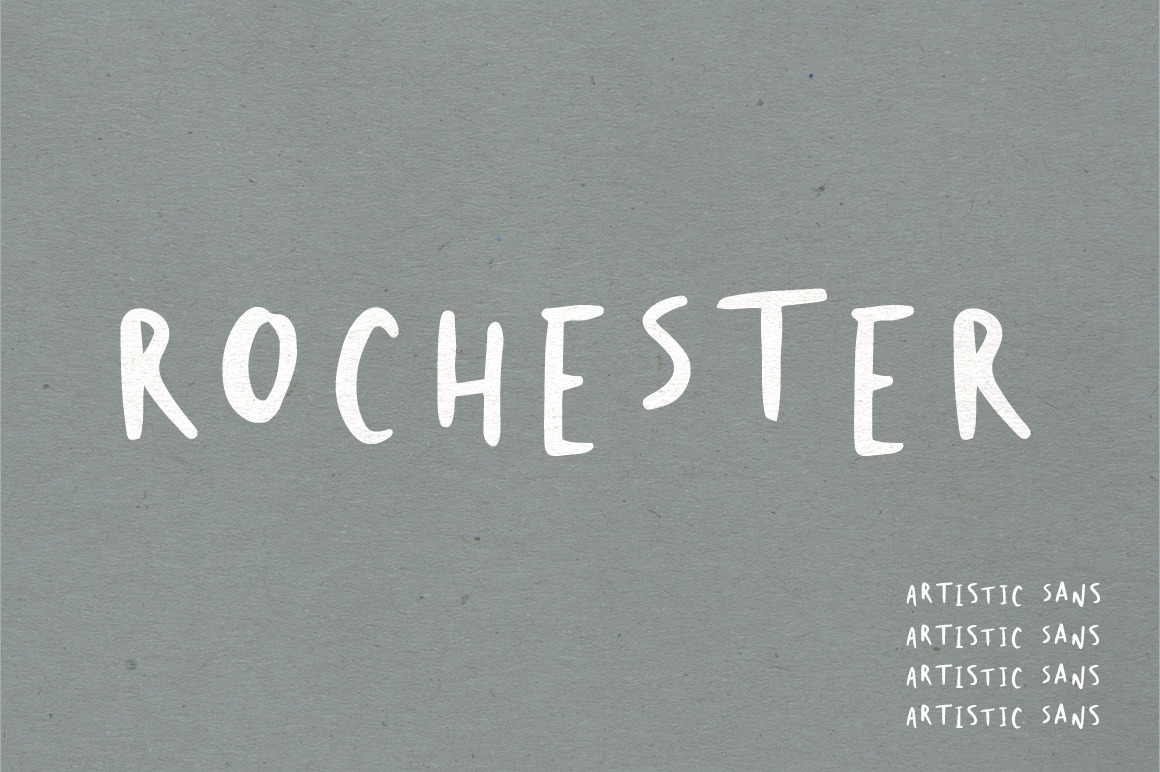
Rochester | An Abstract Font
Rochester is an all caps sans serif with alternate letters available via the lowercase. It's an abstract and artistic font, perfect when used alongside mixed media compositions and collages. It's also beautiful in menus, branding, logos, and invitations!
- uppercase letters with alternates via lowercase
- numbers + punctuation
- non-English characters